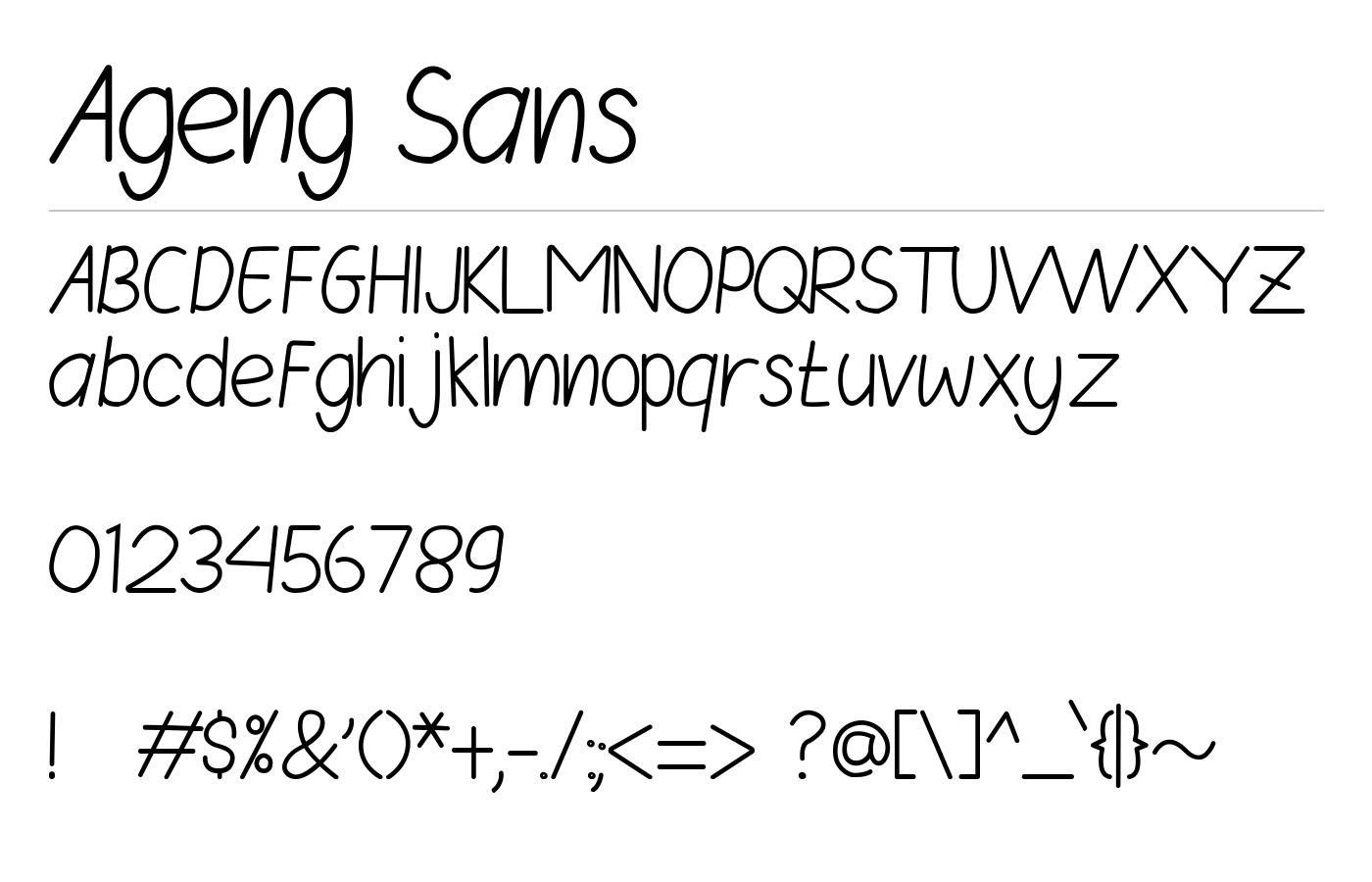
Ageng Sans is a light and playful sans serif font with a hand-drawn, casual feel that brings warmth and approachability to any design. Its narrow, slightly irregular letterforms and soft curves make it ideal for creative, informal projects like children’s books, greeting cards, or lifestyle branding where a friendly and personal touch is desired. This font works best in headlines and short text to convey charm and personality while maintaining clarity and openness.
Ageng Sans Font
About Ageng Sans Font
| Font family | Ageng Sans Font |
| Designer | Ageng Jatmiko |